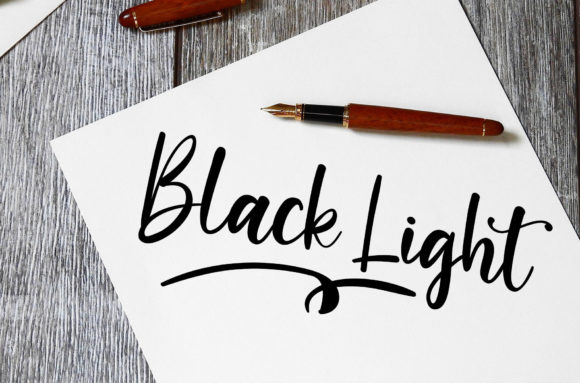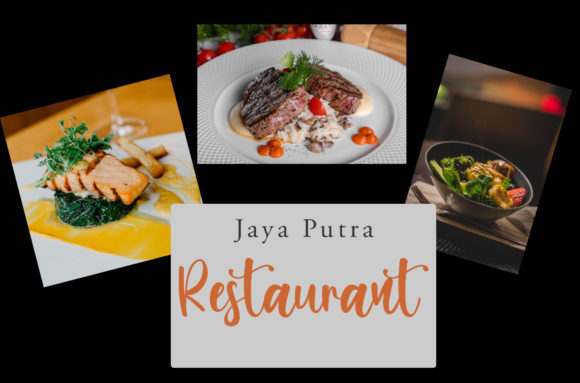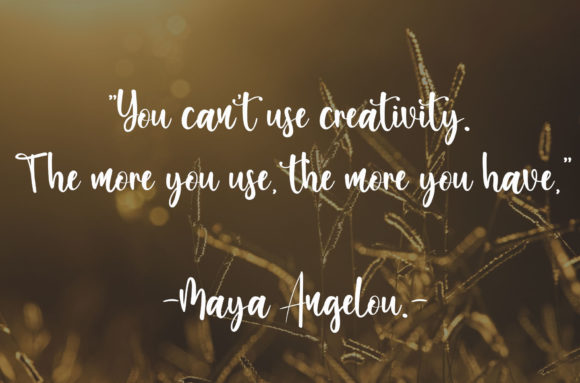
Introduction to New Biscuits Font
There’s something magical about a well-designed font that brings a creative project to life. We’ve all been there – staring at a blank page, trying to find the perfect words to express our idea. And then, suddenly, it clicks. The words start flowing, and the design begins to take shape. For designers, finding the right font can be the difference between a good design and a great one.
That’s why we’re excited to introduce you to the New Biscuits Font – a high-quality, free download that’s perfect for any creative project. With its smooth, elegant design and beautiful, balanced look, New Biscuits Font is a versatile design resource that can add a touch of sophistication to any design.
Key Features of New Biscuits Font
- Unique characteristics include a playful, whimsical feel and a wide range of expressive characters
- Perfect for designers looking for a fresh and modern design resource for their next creative project
Honest Review: New Biscuits Font
I recently stumbled upon the New Biscuits Font, and I’m excited to share my thoughts on this design resource. As a designer, I appreciate high-quality fonts that can elevate a creative project. The New Biscuits Font is a free download, which is a huge plus for those on a budget.
Here are some aspects that work well:
- Unique character set: The font features a distinctive set of characters that can add a touch of personality to your design.
- Transparent background: This makes it easy to use the font on top of any background or image.
- High-quality design: The font is well-designed and looks great on a variety of devices.
However, there are some limitations:
- Limited language support: The font only includes characters for the Latin alphabet, which may not be suitable for non-English projects.
- No bold or italic weights: If you need a bold or italic version of the font, you may be out of luck.
Overall, I think the New Biscuits Font is a great addition to any designer’s toolkit. Its unique character set and transparent background make it a versatile design resource. While it may have some limitations, it’s definitely worth considering for your next creative project.
Tips for Getting the Most Out of the New Biscuits Font
For best results, use the New Biscuits Font on a high-quality design resource with a transparent background. This will allow you to easily layer and blend the font with other design elements. Additionally, experiment with different font sizes and styles to add creative flair to your project.
The New Biscuits Font is perfect for creative projects such as logo design, social media graphics, and marketing materials. Its unique style and high-quality design make it an ideal choice for businesses and individuals looking to add a touch of sophistication to their brand.